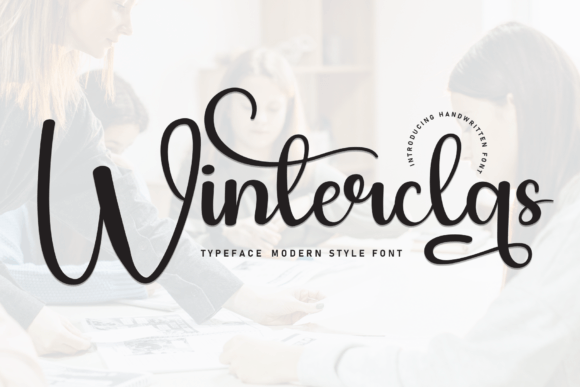
Introducing Winterclas Font, the perfect script font for adding a touch of charm and joy to your designs! Created by the talented William Jhordy, this sweet and friendly handwritten font is a must-have for anyone looking to infuse their projects with a delightful and festive vibe.
With its unique and captivating style, Winterclas Font is the ultimate choice for all your Christmas-themed creations. Whether you're preparing wedding invitations, designing cards, or simply want to add a fun touch to your artwork, this font will elevate your projects to new levels of creativity.
Imagine the joy and excitement your loved ones will feel when they receive a beautifully crafted invitation adorned with Winterclas Font. Its elegant and playful strokes effortlessly capture the essence of the holiday season, making it the perfect choice for spreading warmth and cheer.
But Winterclas Font doesn't limit itself to Christmas alone. Its versatility allows you to explore countless design possibilities throughout the year. From birthday cards to party decorations, this font will bring a touch of whimsy and charm to any occasion.
What sets Winterclas Font apart is its impeccable attention to detail. Every swirly curve and delicate line is meticulously handcrafted to create a stunning visual impact. The font's seamless flow and gentle rhythm will captivate your audience, leaving them in awe of your artistic prowess.
Embrace the beauty of Winterclas Font and let your imagination run wild. Its wide range of applications ensures that you'll never run out of ways to utilize its enchanting style. From digital designs to printed materials, this font truly shines in every medium.
Unlock the true potential of your creativity and immerse yourself in the magical world of Winterclas Font. Download it today and experience the joy of adding a personal and heartfelt touch to all your designs. Whether you're a seasoned designer or a passionate hobbyist, this font is sure to become your go-to choice for all your festive projects.
Don't miss out on this opportunity to enchant your audience with Winterclas Font. It's time to infuse your designs with the spirit of Christmas and spread love and joy through every stroke of your pen. Let Winterclas Font be your trusted companion on this creative journey.